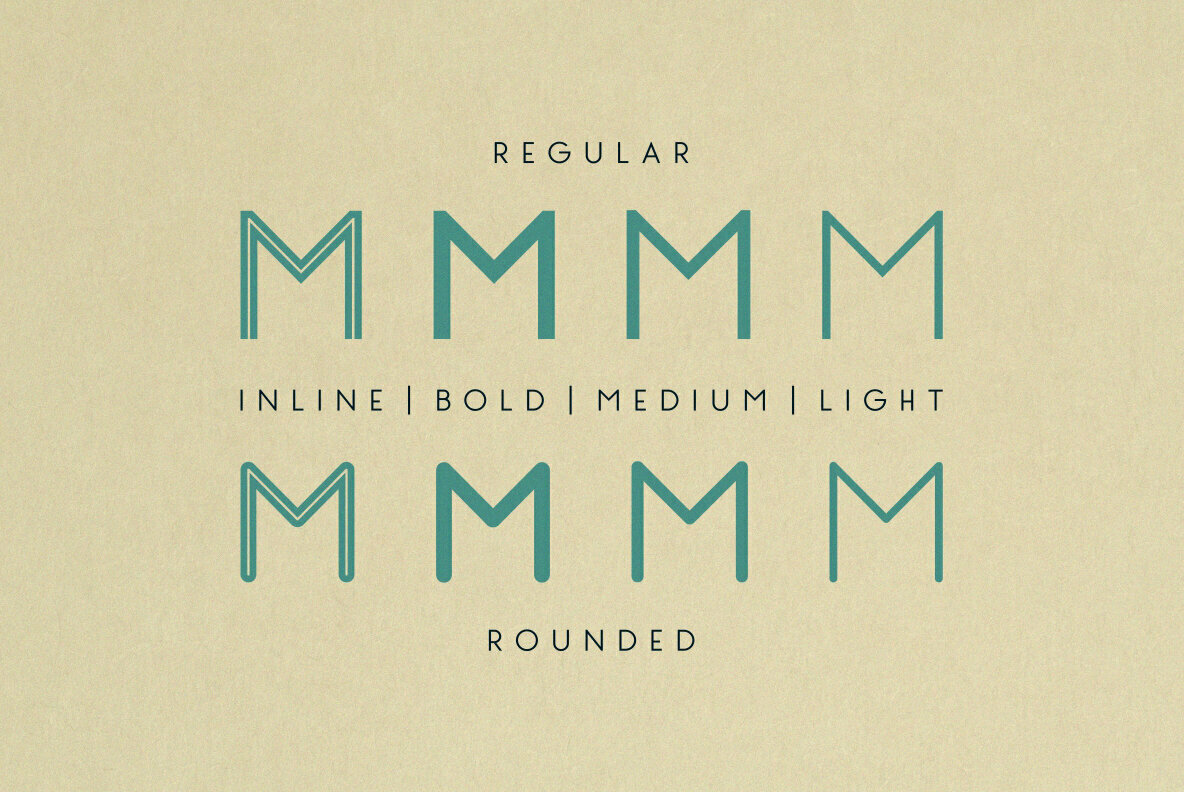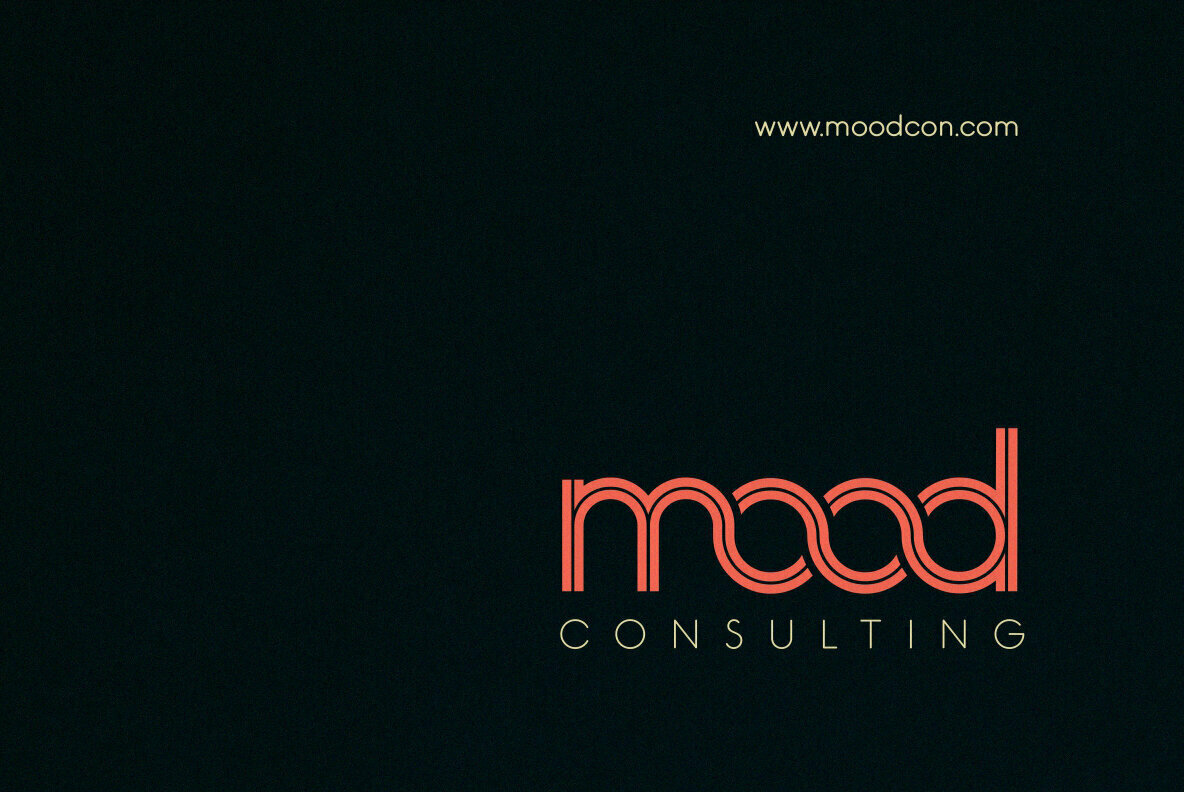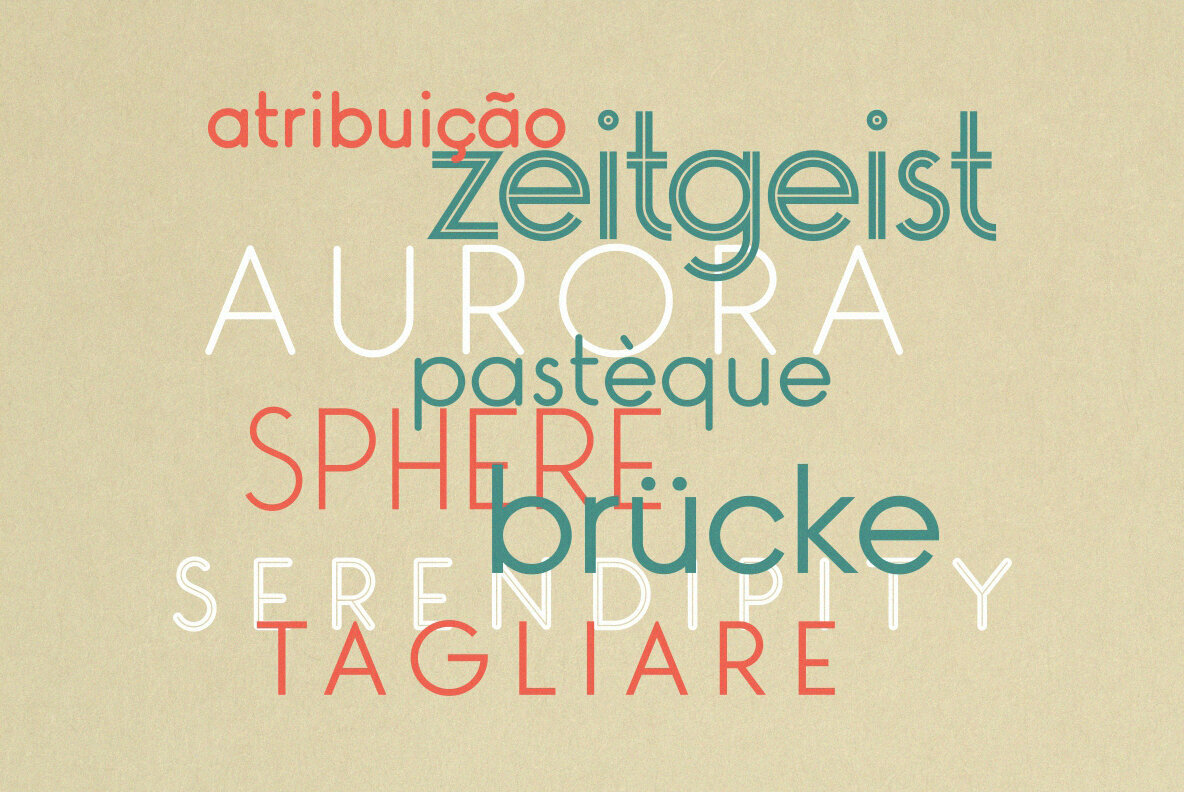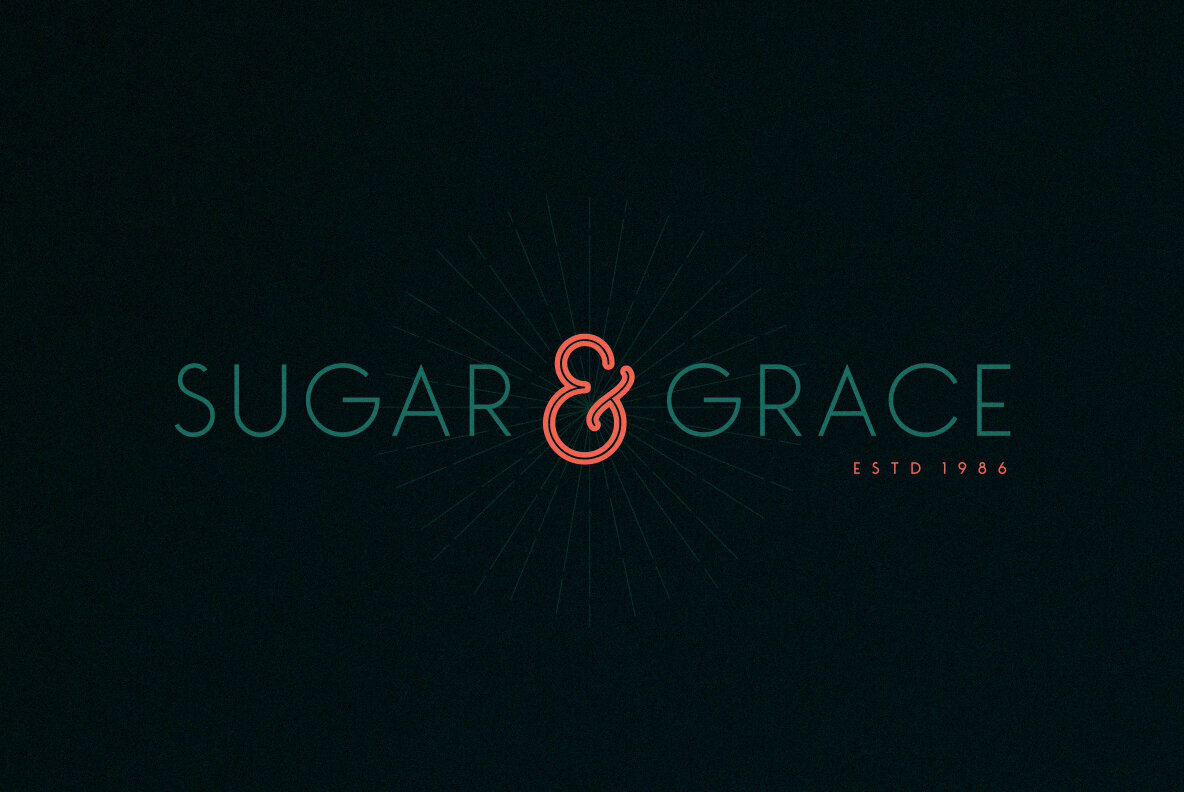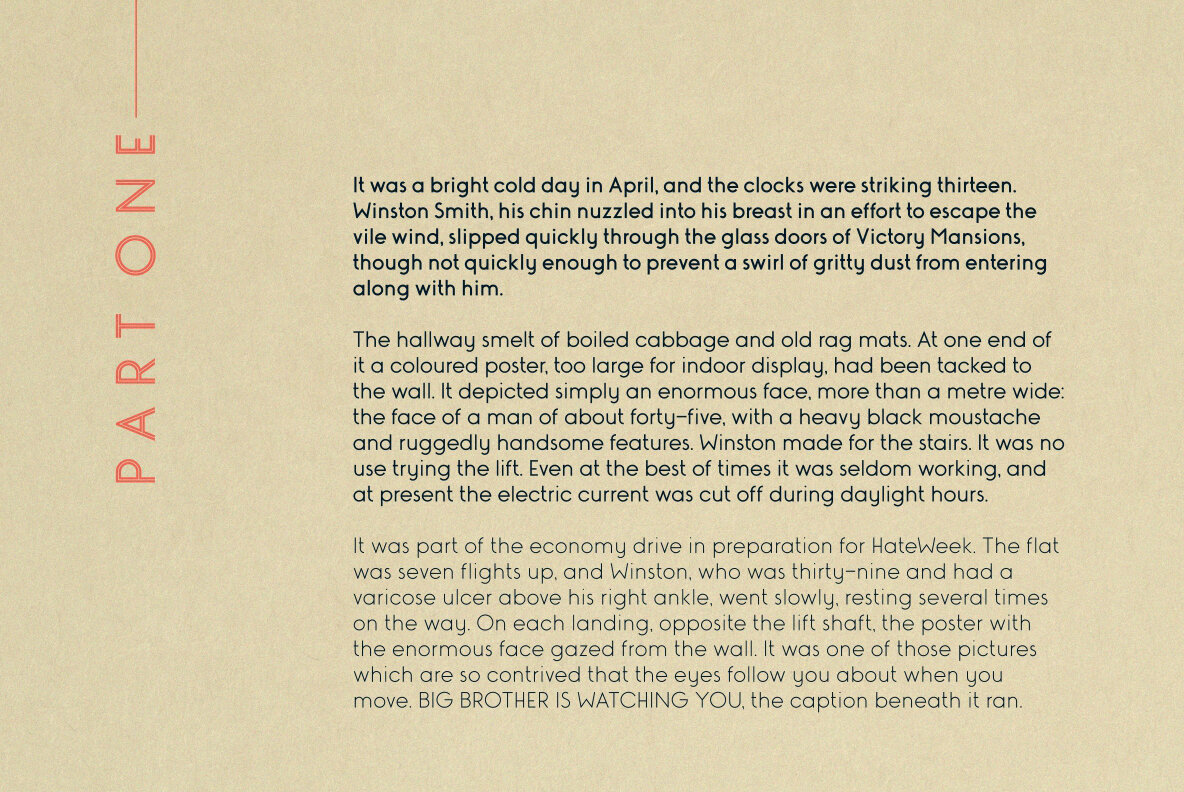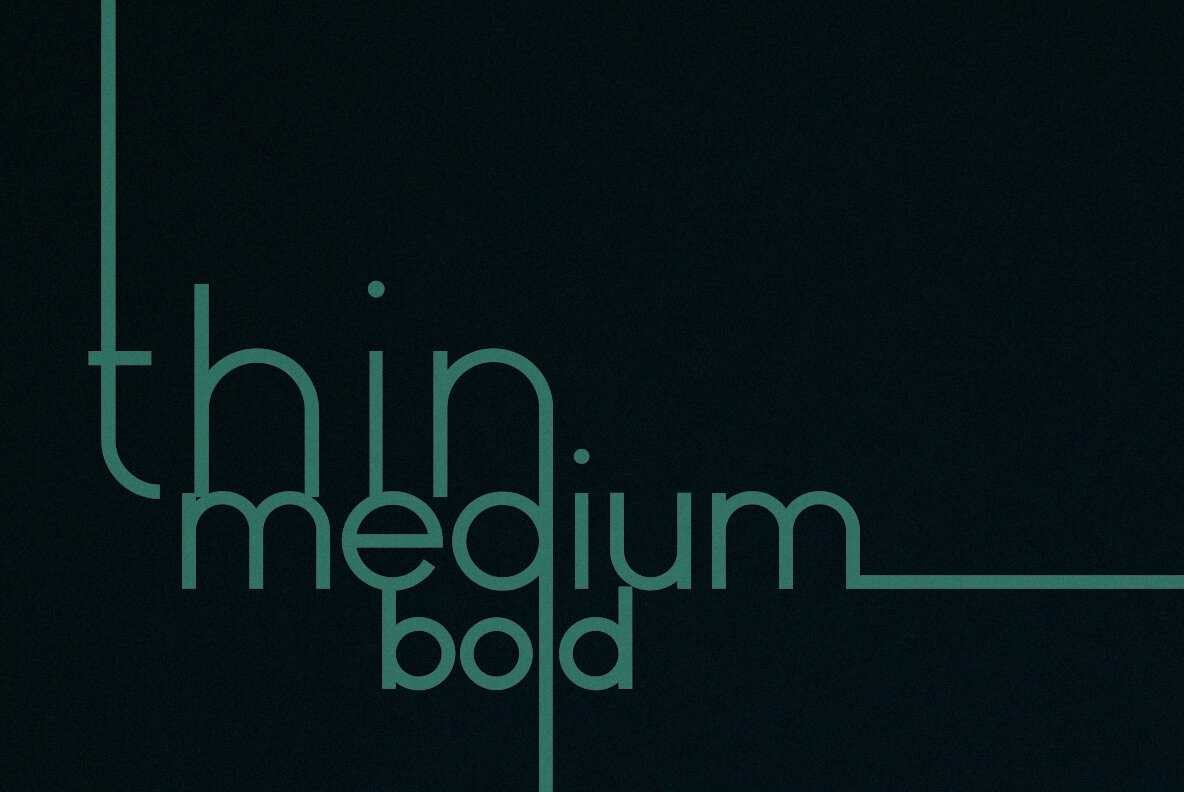
Monopolix* (previously Monopoly) is a modern, simple and clean monolinear sans-serif typeface. As a display typeface is useful for posters, logotypes, titles and short text in general.
2022 Update features 8 Styles. Flat and Rounded terminals (Light, Medium, Bold and Bold Inline). Basic Latin language support.